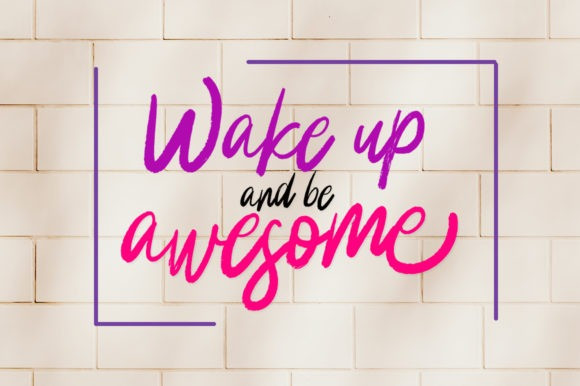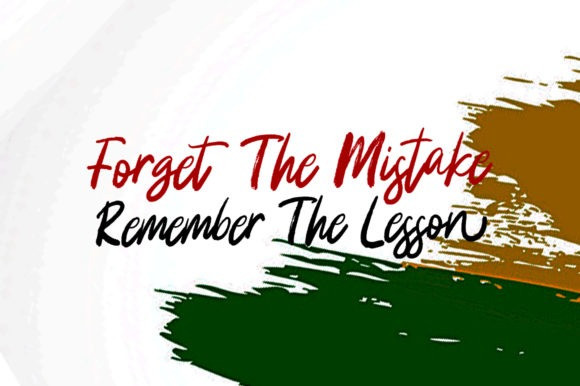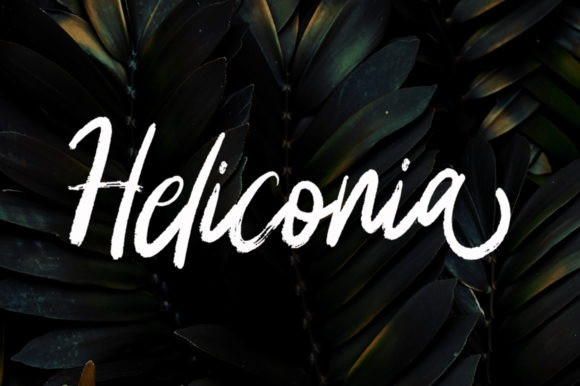
Heliconia Font
Heliconia Script Font is a hand brushed script font with a unique feel. This fantastic font is best suited for headlines of all sizes, as well as for blocks of text that have both maximum and minimum variations. Whether it’s for web, print, moving images or anything else – Heliconia will look spectacular.